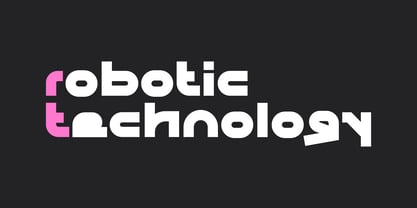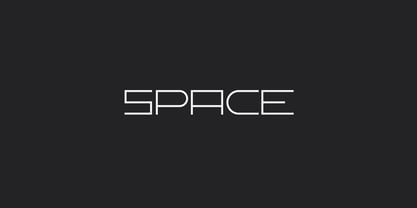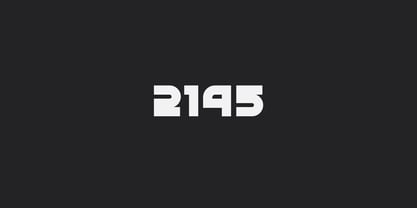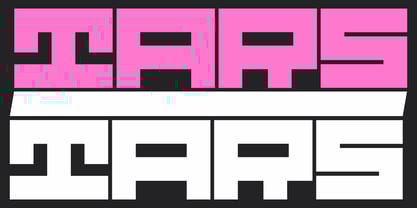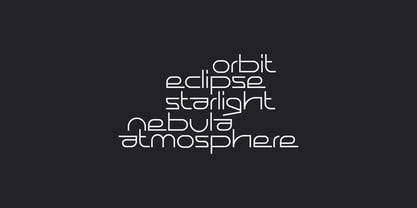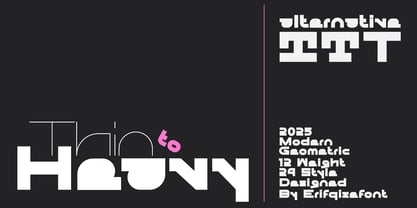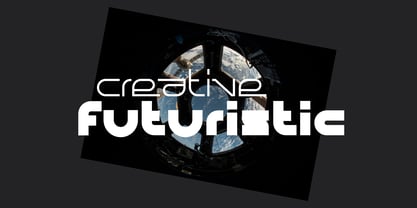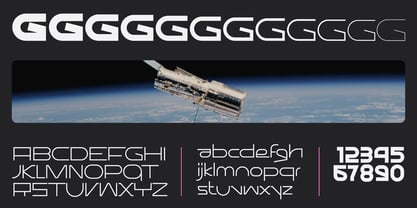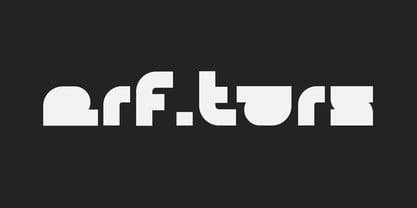
ERF Tars
by Erifqizefont
The ERF Tars Font Family was designed by Eka Rifqi Setiawan and published by Erifqizefont. ERF Tars contains 24 styles and family package options. More about this family
ERF Tars
Modern. Bold. Geometric.
ERF Tars is a futuristic display font family designed with sharp geometric cuts and experimental brutalist aesthetics. Its striking modular forms give off a bold and unconventional voice, perfect for standout headlines, logos, and ultra-modern branding.
With 24 styles (12 Uprights + 12 Italics), ERF Tars offers a wide range of expressive weights, from minimal Whisper to dominant Doom, making it highly versatile for both digital and print needs. Each character is crafted to make an impact while maintaining legibility and rhythm.
Whether you're designing for a cutting-edge tech brand, a music poster, or a forward-thinking UI, ERF Tars delivers power and personality in every letterform.
Features:
• 24 styles: 12 weights with matching italics
• Unique geometric shapes and sharp terminals
• All caps font with strong visual rhythm
• Multilingual support (Latin & Extended)
• OpenType features: Alternates & Ligatures
Push boundaries. Say it loud. Choose ERF Tars.
Designers: Eka Rifqi Setiawan
Foundry: Erifqizefont